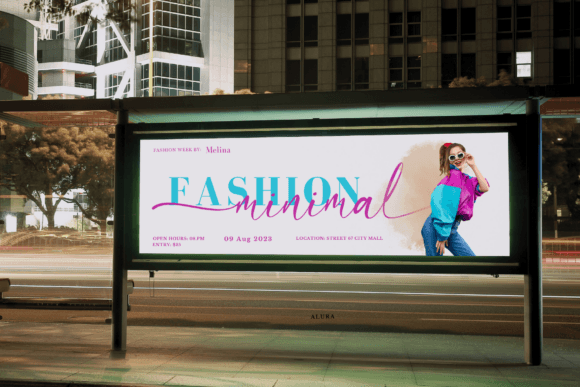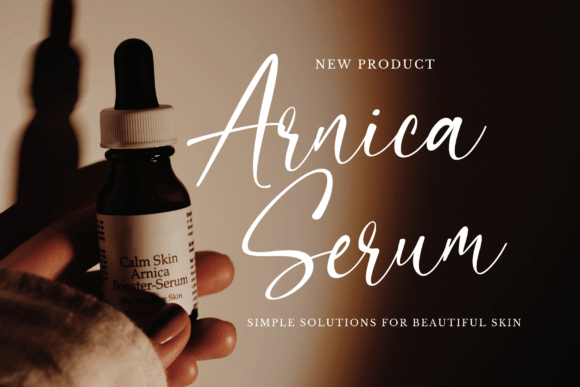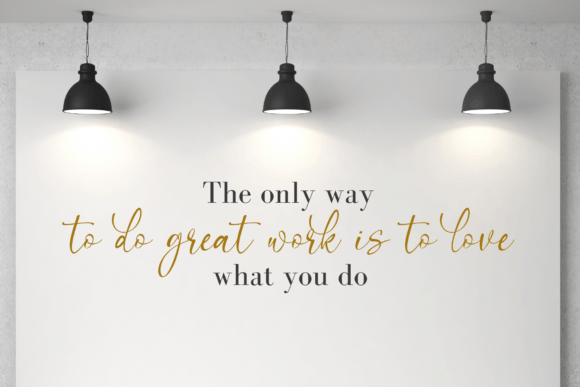
Introduction to Rosegoldia Font
As designers, we’ve all been there – staring at a blank canvas, waiting for inspiration to strike. And then, it happens. A spark of creativity ignites, and suddenly, the perfect font appears in your mind’s eye. For many of us, that font is the elegant and modern Rosegoldia Font. With its sleek letterforms and graceful curves, this script font is the ultimate design resource for adding a touch of sophistication to your work.
Whether you’re working on a high-end branding project or a creative campaign, the Rosegoldia Font is sure to elevate your design to the next level. Its refined beauty and modern style make it the perfect choice for designers who want to create stunning visuals that leave a lasting impression. And the best part? You can download the Rosegoldia Font for free, complete with a transparent background, making it easy to incorporate into any design project.
Key Features of Rosegoldia Font
- Unique, elegant design with a luxurious feel, perfect for creative projects that require a touch of sophistication.
- Includes a range of font styles and weights, making it an ideal design resource for designers and artists working on high-end projects.
- Perfect for use in graphic design, digital art, and other creative fields where a high-quality, unique font is required.
- Supports a wide range of languages, making it a versatile design resource for international projects and design applications.
Honest Review: Rosegoldia Font
I recently stumbled upon the Rosegoldia Font, and I must say it’s been a game-changer for my creative projects. This beautiful font is perfect for designers looking for a high-quality, elegant script that adds a touch of sophistication to any design.
Here are some of the things I love about the Rosegoldia Font:
- ✨ High-quality design: The font is well-crafted, with smooth lines and a consistent style.
- ✨ Versatile: It can be used for a variety of projects, from wedding invitations to branding materials.
- ⚠️ Limited character set: The font only includes a limited number of characters, which may not be suitable for longer text-based projects.
Overall, I’m thoroughly impressed with the Rosegoldia Font. Its unique design and high-quality feel make it a valuable addition to any designer’s toolkit. Whether you’re working on a creative project or simply need a beautiful font for your next design, the Rosegoldia Font is definitely worth checking out.
How to Use Rosegoldia Font
Rosegoldia Font is a versatile and stylish font perfect for creative projects, offering a unique aesthetic that can elevate any design. It’s available for free download, making it an excellent addition to your design resource collection.
Getting the Most Out of Rosegoldia Font
To get the most out of this font, experiment with different sizes, colors, and layering techniques. Combine it with other design elements to create unique and eye-catching designs.
Rosegoldia Font is perfect for various creative projects, including:
- Social media graphics and advertising
- Presentations and business documents